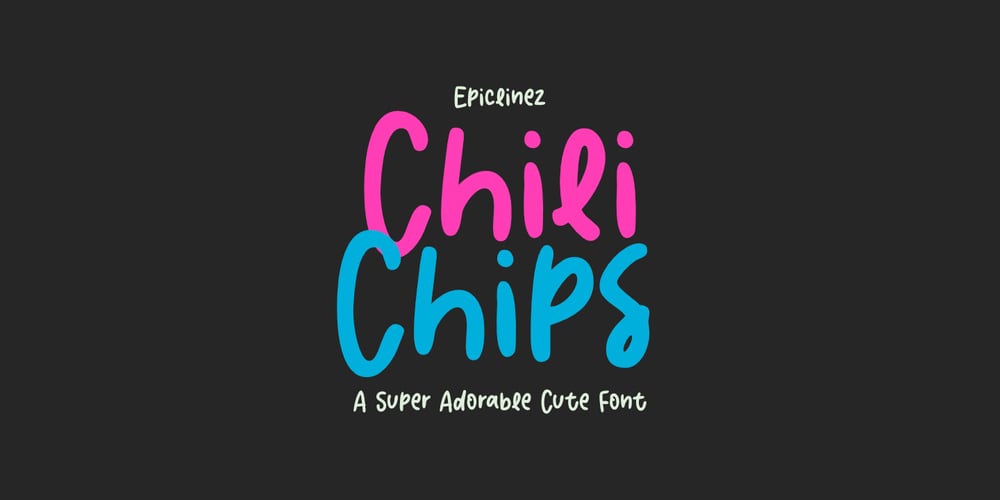
Chili Chips Font Family was designed by Aldy Sidik and published by Epiclinez. Chili Chips contains 1 styles and family package options. Chili Chips is a playful handwritten font. Looks great on a children’s craft, teaching material, quotes, or any other design that needs a splash of cuteness!This font is supporting 66 languages, from English to Zulu. It is also PUA encoded and has open-type features such as ligatures to help you create that authentic handwritten look.Thanks, hope you enjoy our fonts.